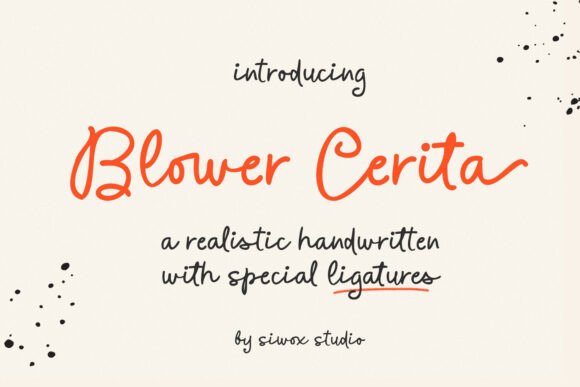
Unlocking Creative Potential with Blower Cerita Font
Have you ever been in the middle of a design project, and suddenly, you’re stuck on finding the perfect font? I recall a recent experience where a client requested a custom wedding invitation design, and I was struggling to find a font that captured the right blend of elegance and playfulness. That’s when I stumbled upon the Blower Cerita font, a realistic handwritten font that instantly elevated my design game.
A Personal Review of Blower Cerita
- ✨ Realistic Handwritten Style: Blower Cerita boasts a beautifully crafted, realistic handwritten style that adds a personal touch to any design project.
- ✅ Versatility: This font is perfect for a wide range of creative projects, from logos and invitation cards to home decor and holiday gift packaging.
- 🔥 Unique Character: The font’s distinct character set makes it easy to create eye-catching designs that stand out from the crowd.
While Blower Cerita is an excellent font, there are a few minor quirks to be aware of:
- 🤔 Limited Multilingual Support: Although the font supports multiple languages, some characters may not be available or might require additional setup.
- ⚠️ Glyph Compatibility: Some glyphs or special characters might not work seamlessly with certain design software or platforms.
The Story Behind Blower Cerita
Blower Cerita was designed with the intention of creating a realistic handwritten font that captures the essence of personal, human touch in digital designs. The font’s creator aimed to craft a unique and versatile typeface that would inspire designers to create beautiful, one-of-a-kind projects.
| Font Name | Blower Cerita Font |
| Author | SiwoxS |
Q: What is Blower Cerita font best used for?
A: Blower Cerita is perfect for a wide range of creative projects, including logos, invitation cards, wedding invites, birthday cards, home decor, holiday gift packaging, party decorations, fabric prints, and more.
Q: Is Blower Cerita suitable for body text?
A: While Blower Cerita is a beautiful font, it’s best suited for headlines, titles, and short paragraphs. For longer body text, consider using a more traditional serif or sans-serif font.